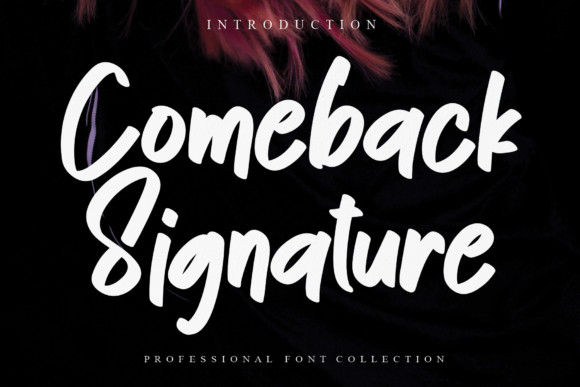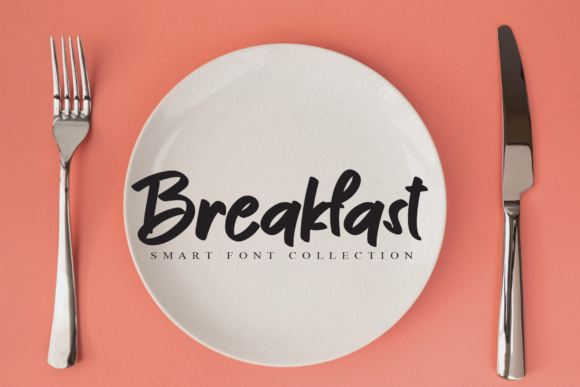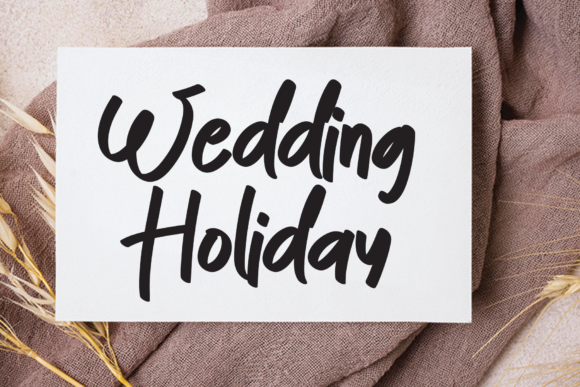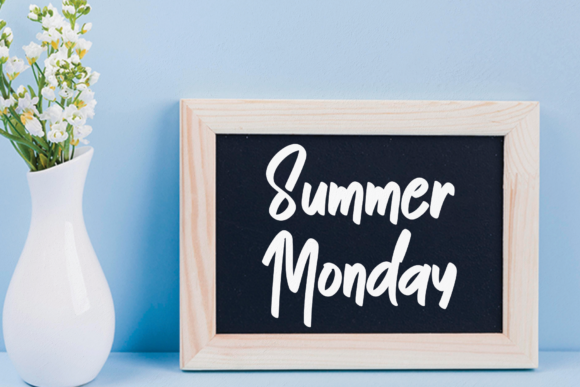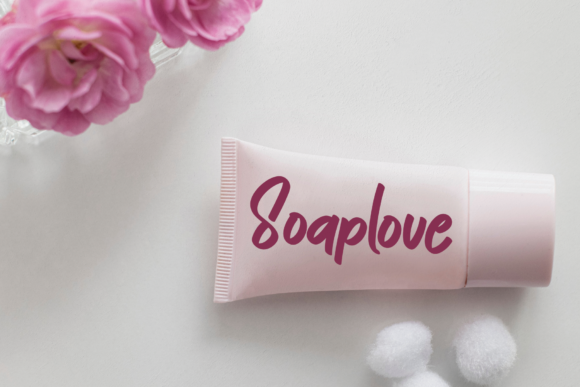
About Comeback Signature Font
Comeback Signature is a chic and relaxed handwritten font. Whatever the topic, this font will be a wonderful asset to your font library, as it has the potential to enhance any creation.